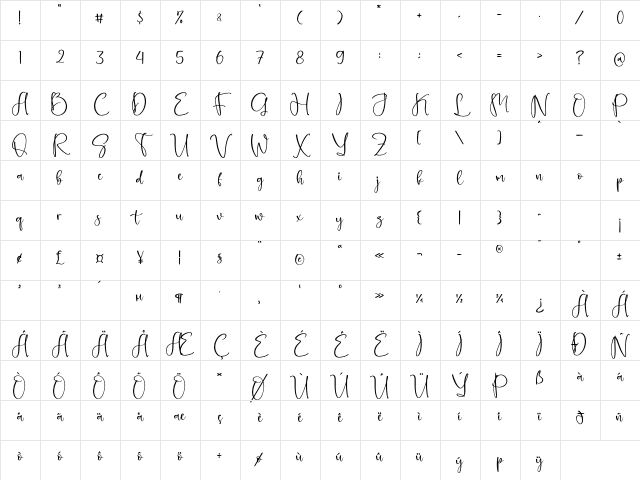
fastelmodern Regular Free Font
fastelmodern Regular
Foundry: Glorytype
Designer: Glorytype
Design Context for fastelmodern
fastelmodern is a composed and adaptable typeface that performs quietly and consistently across a wide range of design contexts.